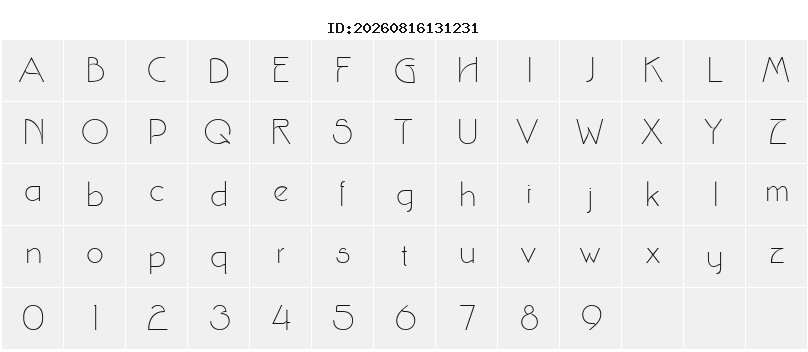
Srinova Preview
• Font Name: Srinova
• Full Font Name: Srinova Regular
• PostScript Name: Srinova
• Designer: Richie Riky
• Manufacturer: R&W Type
About Srinova.ttf
Srinova.ttf is a modern, elegant sans-serif font designed for ultimate readability and visual harmony. Perfect for branding, headlines, web design, and print materials.